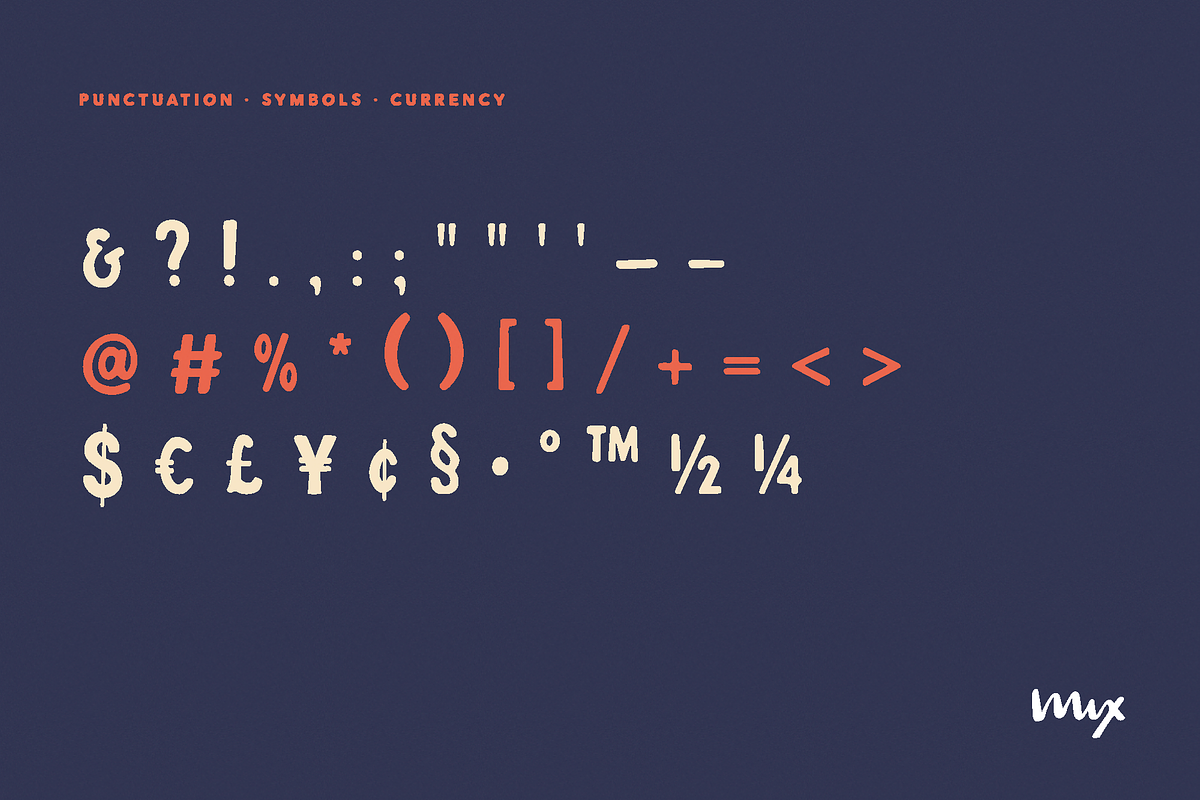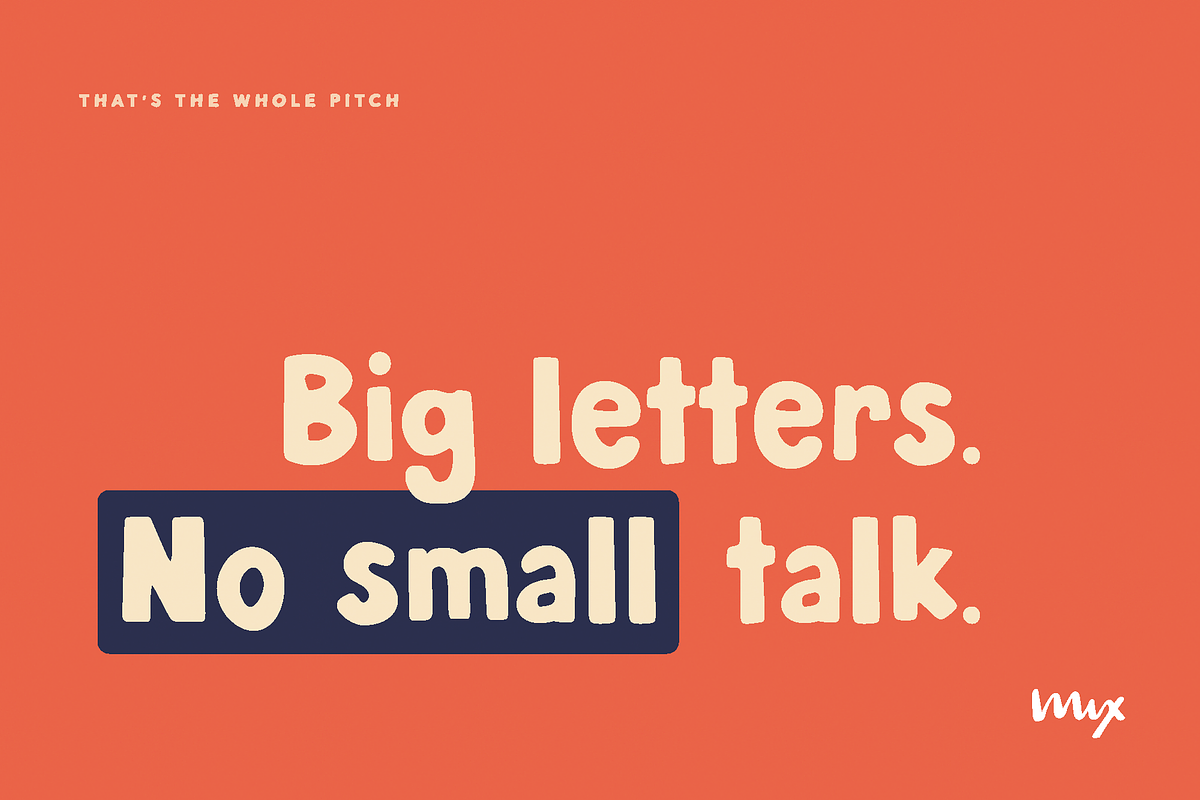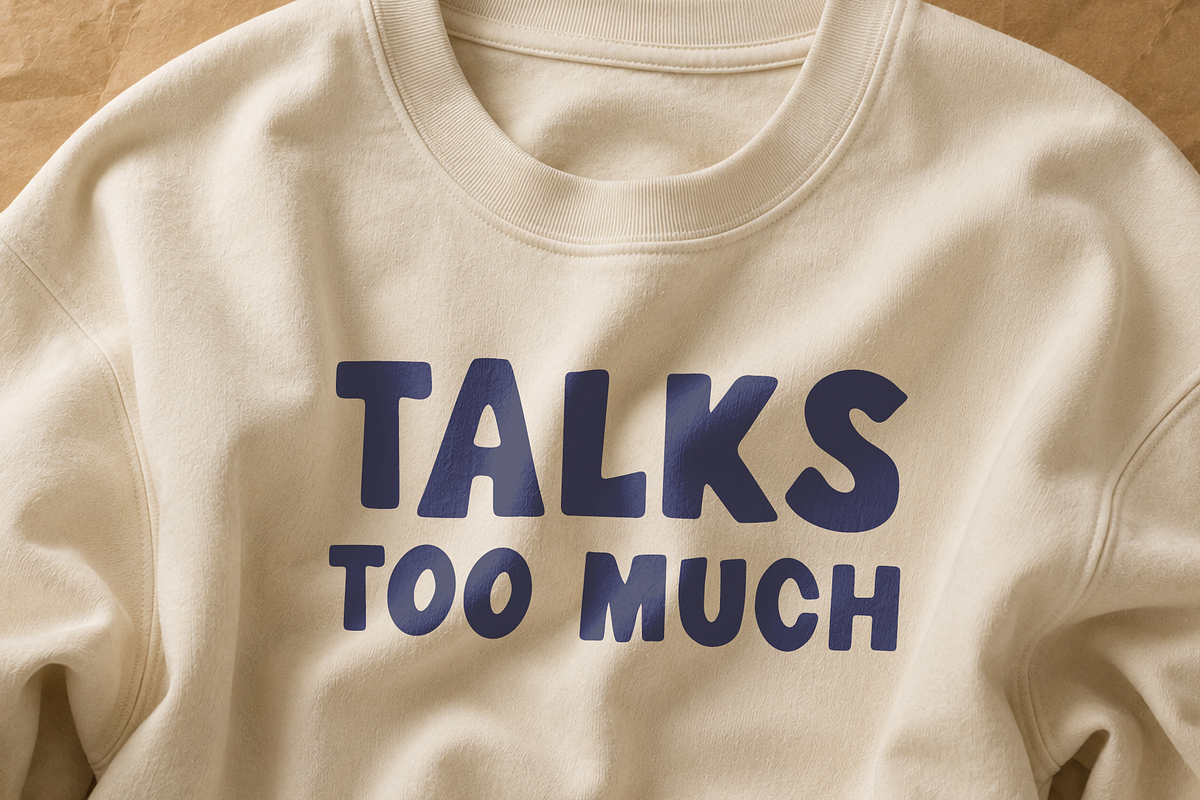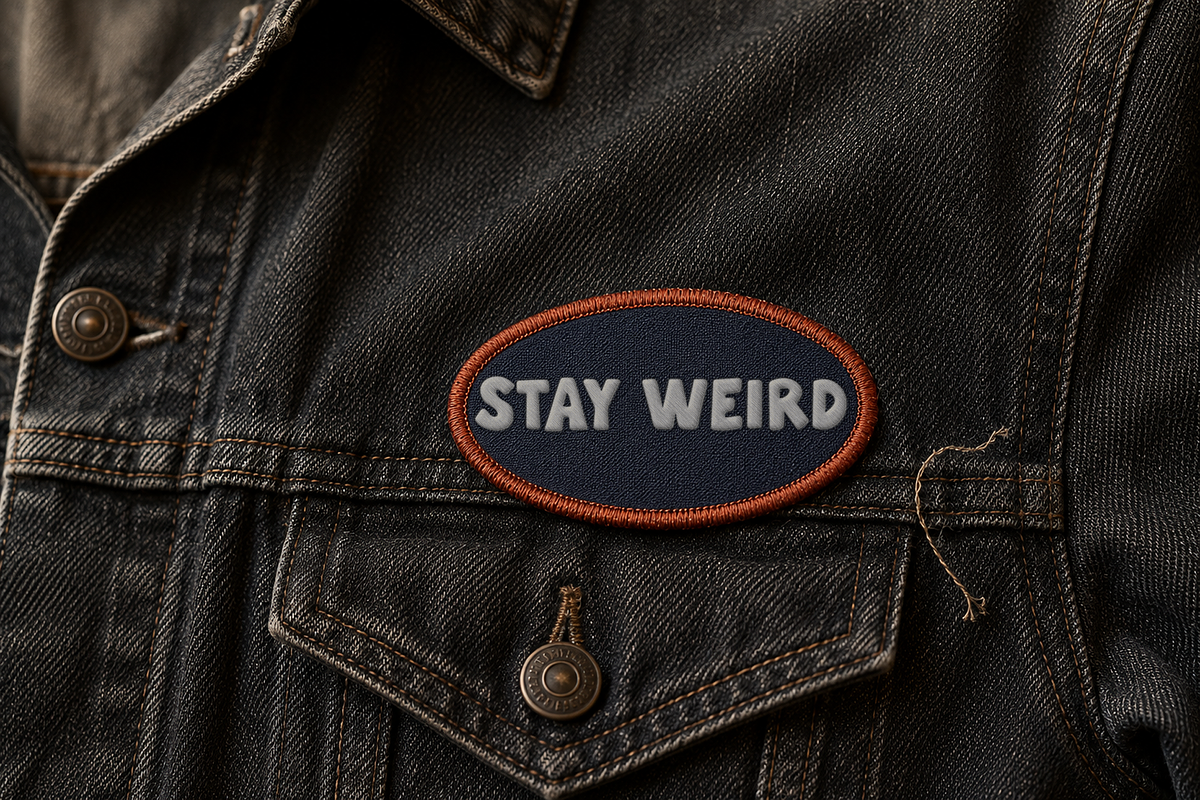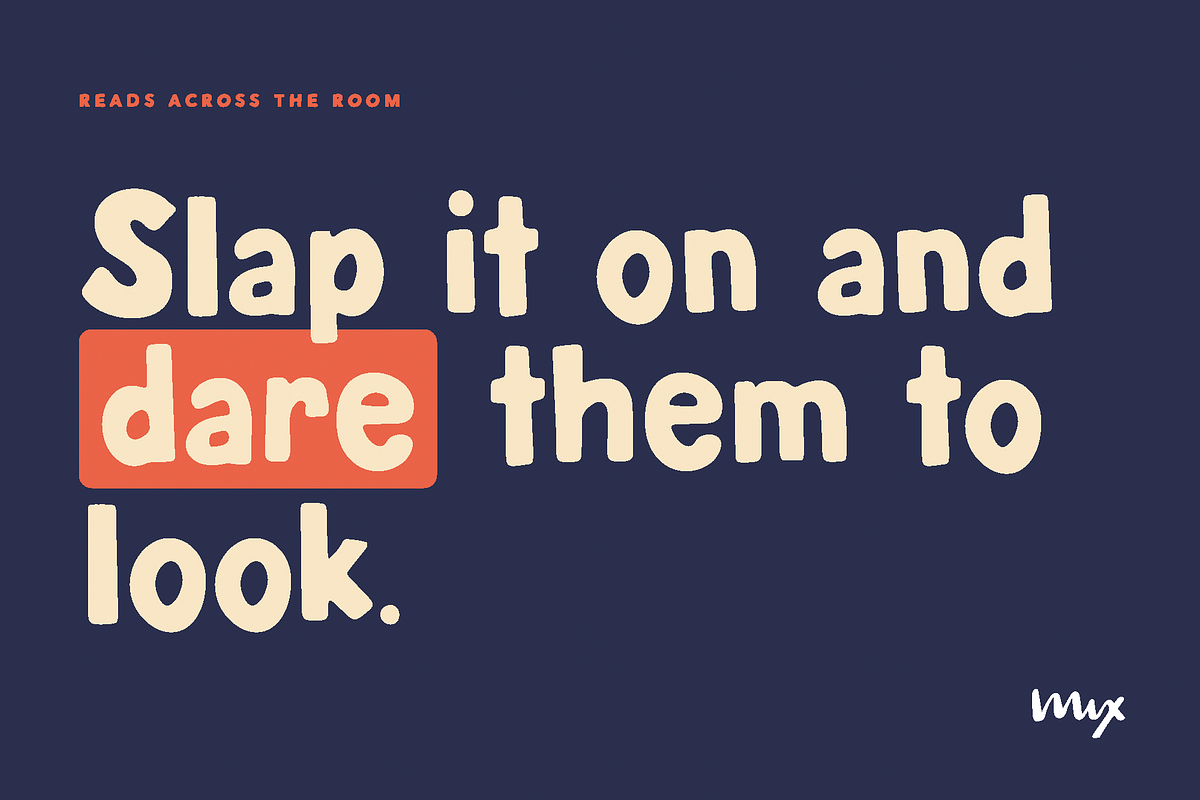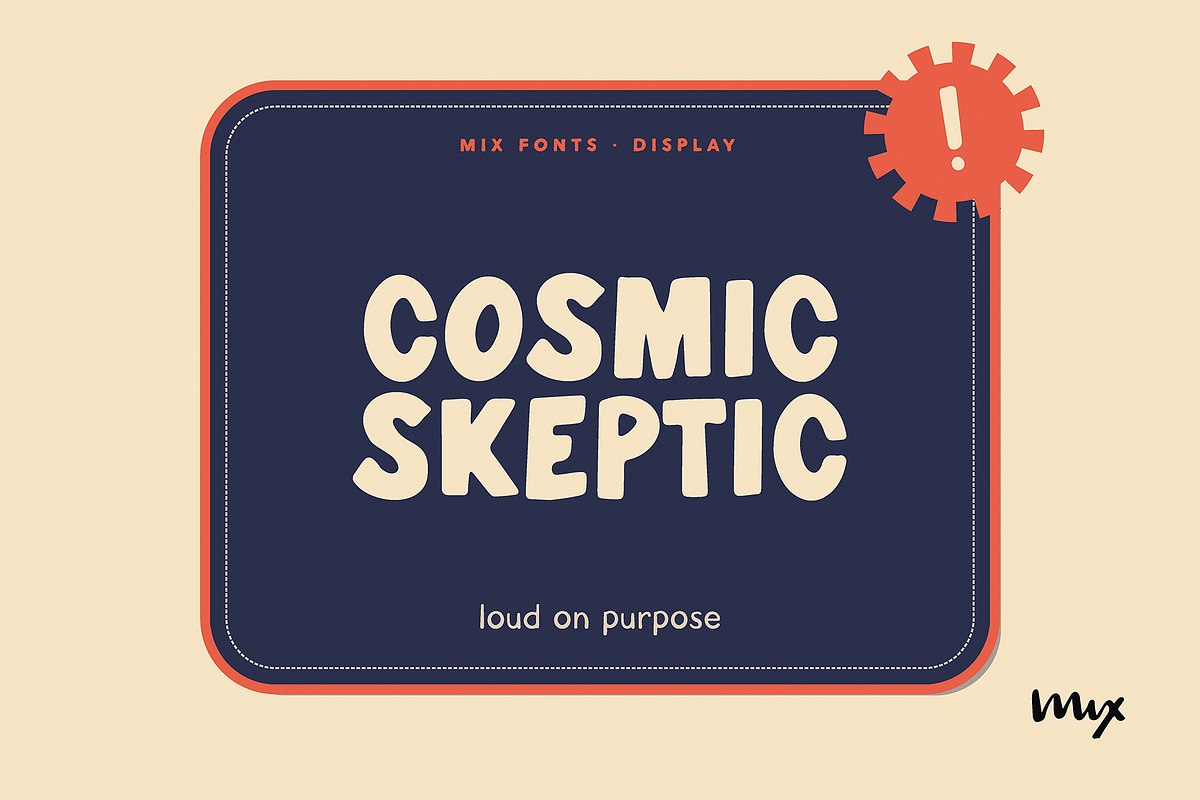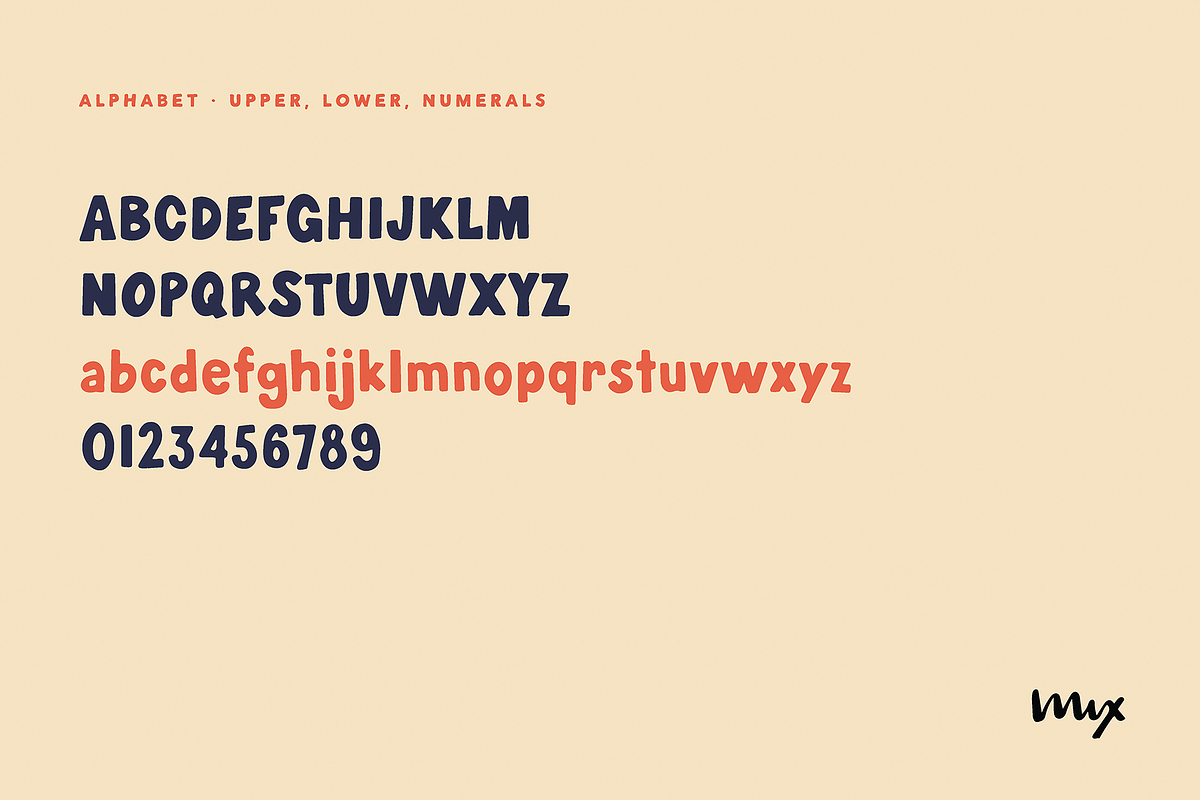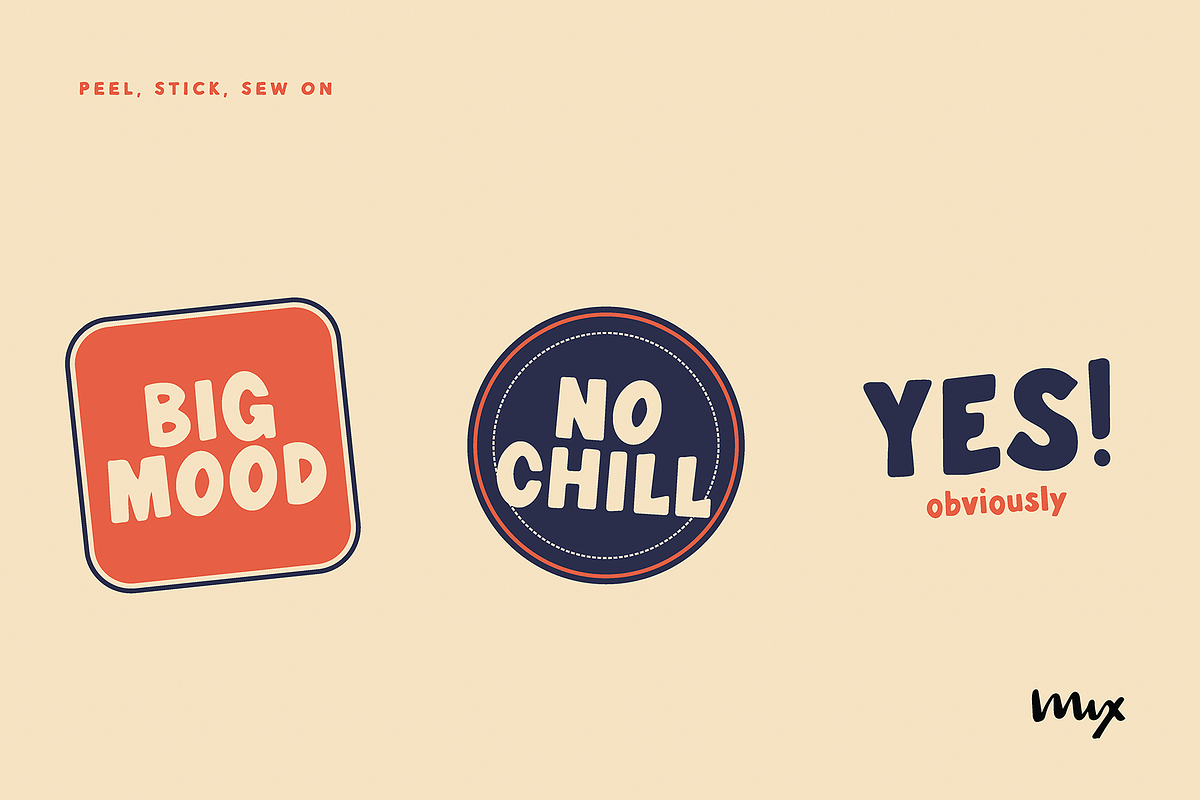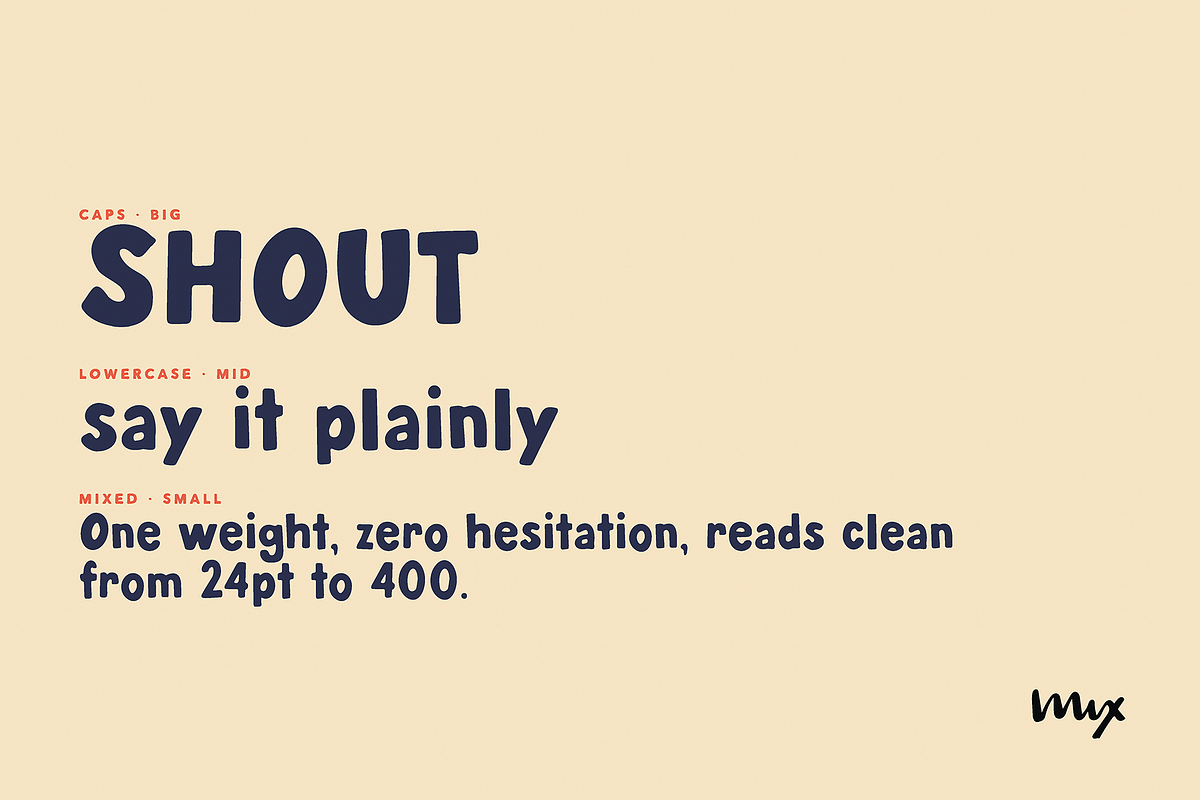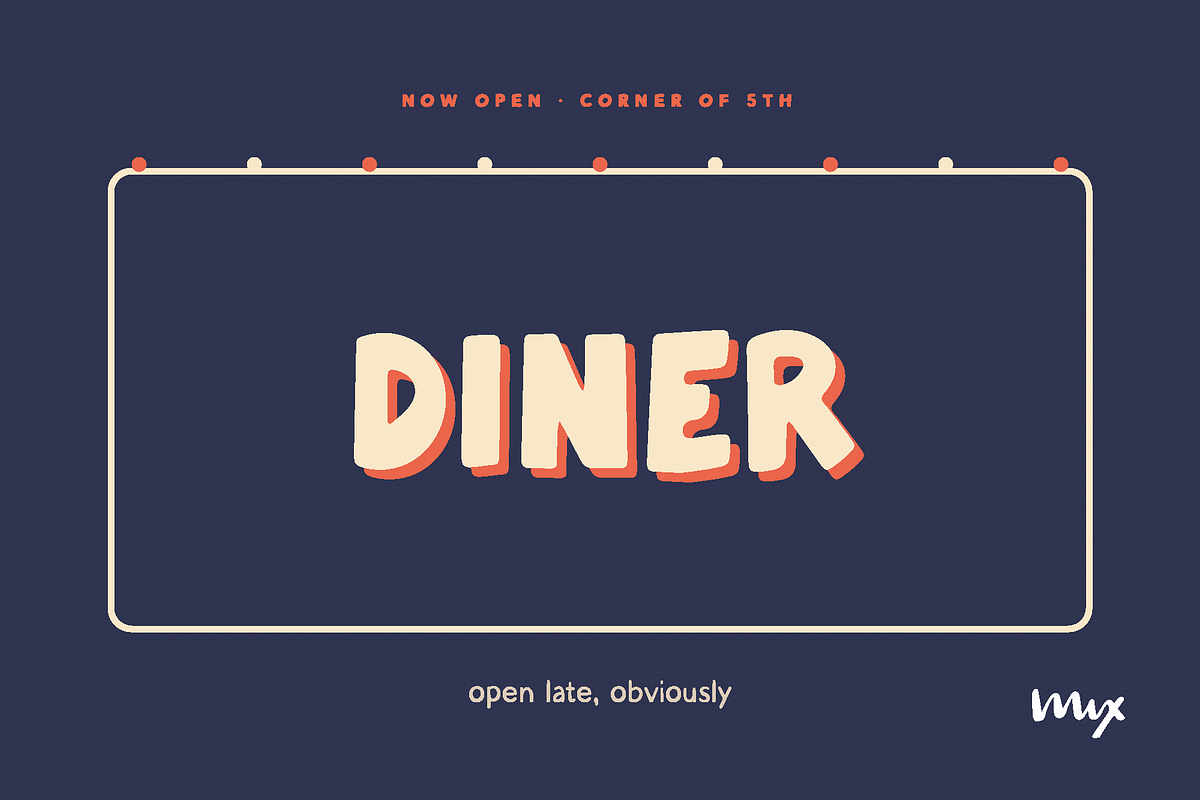
Cosmic Skeptic — A Handlettered Sans
Cosmic Skeptic is loud on purpose. Bold, chunky hand-lettering with thick uneven strokes and a wobbly organic baseline, built for anything that needs to shout without yelling: patches, stickers, merch, signage, packaging, headlines.
This font also carries full extended Latin support, accented characters, currency symbols, and typographic punctuation included, so it holds up for multilingual text, not just English headlines.
- Complete character set: uppercase, lowercase, numbers, full punctuation, extended Latin accents, currency symbols